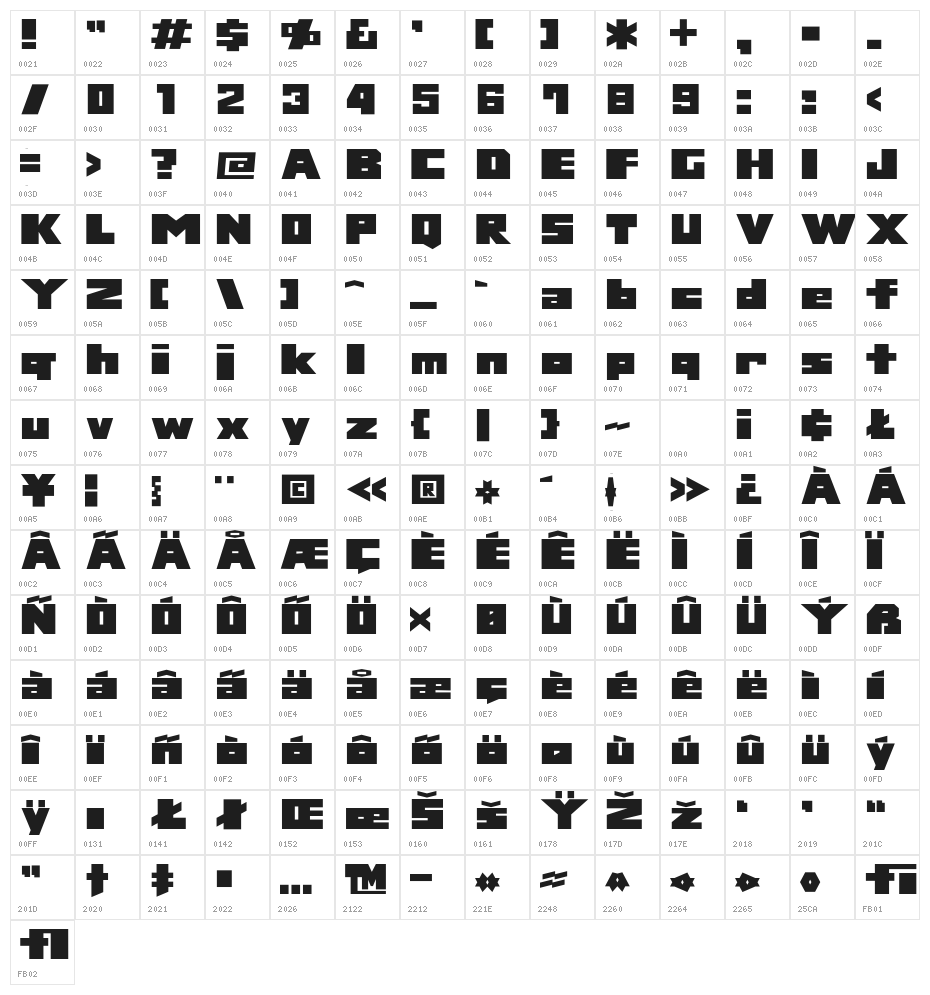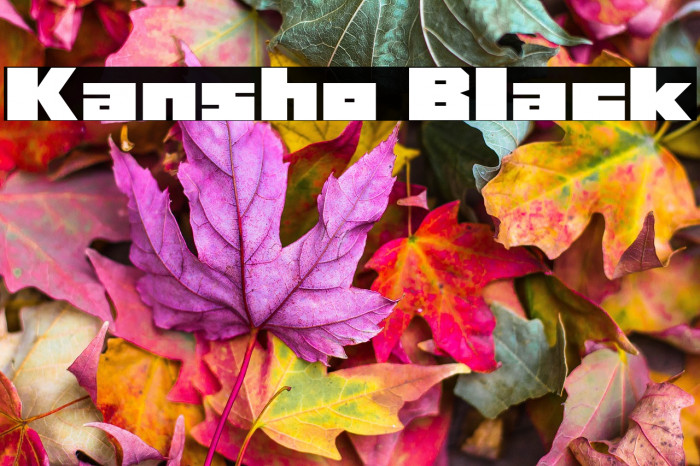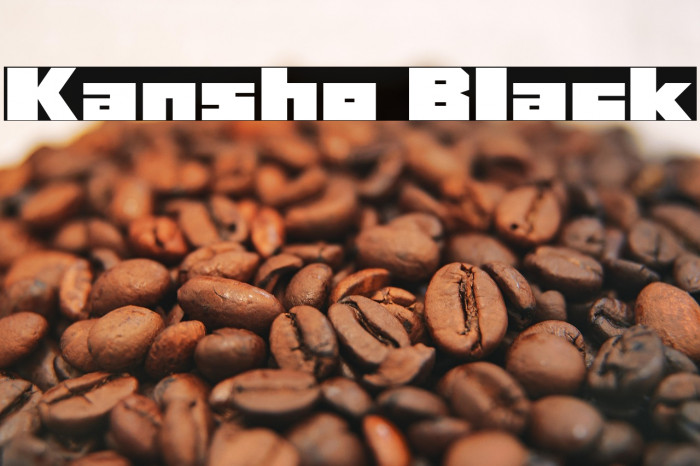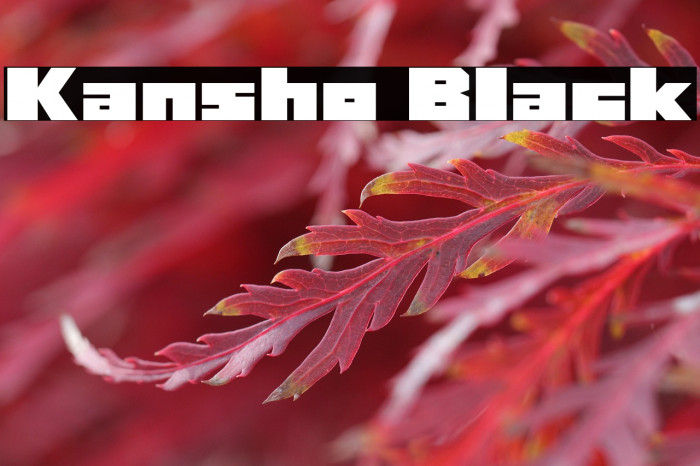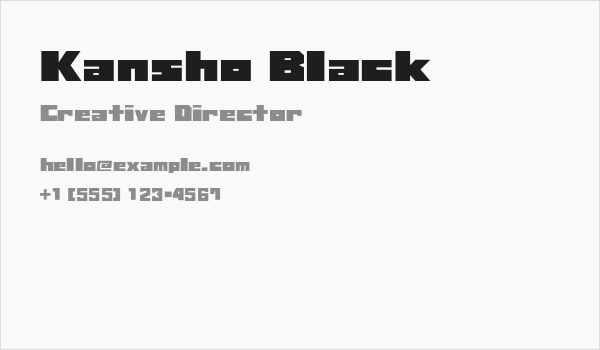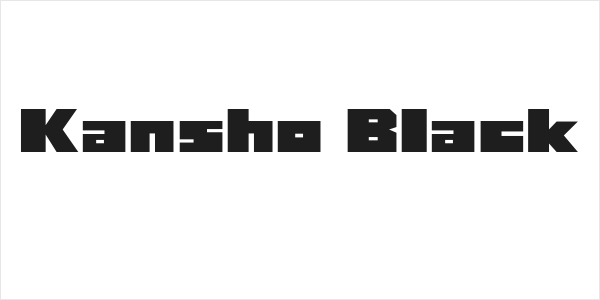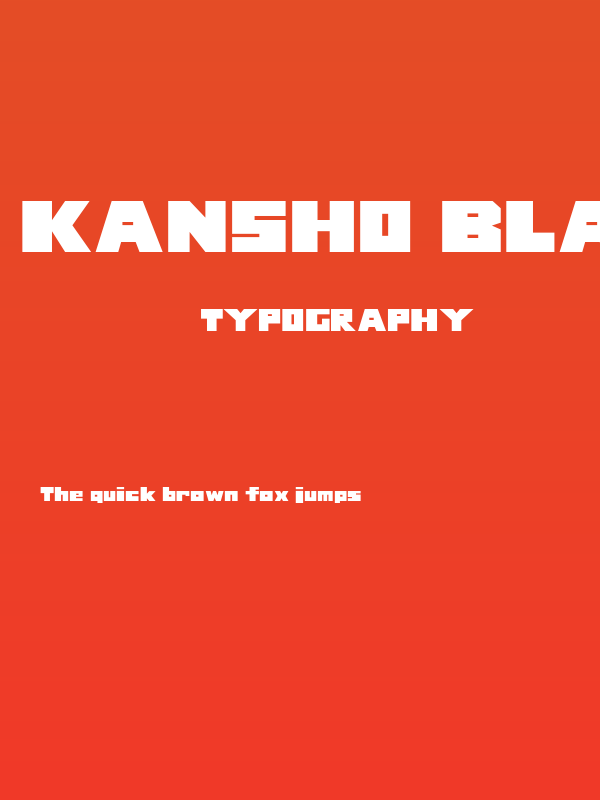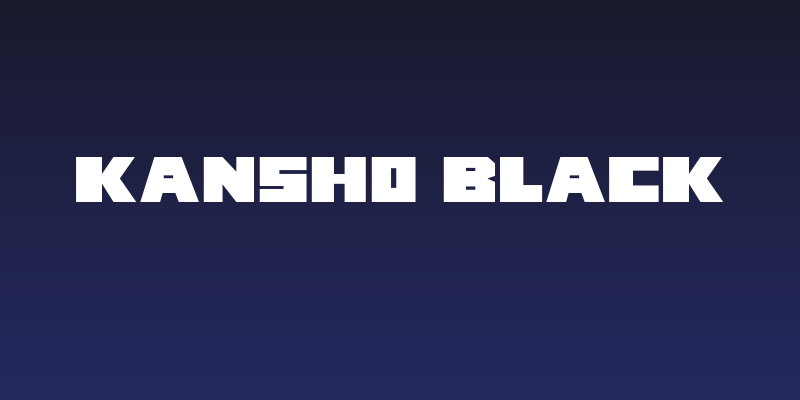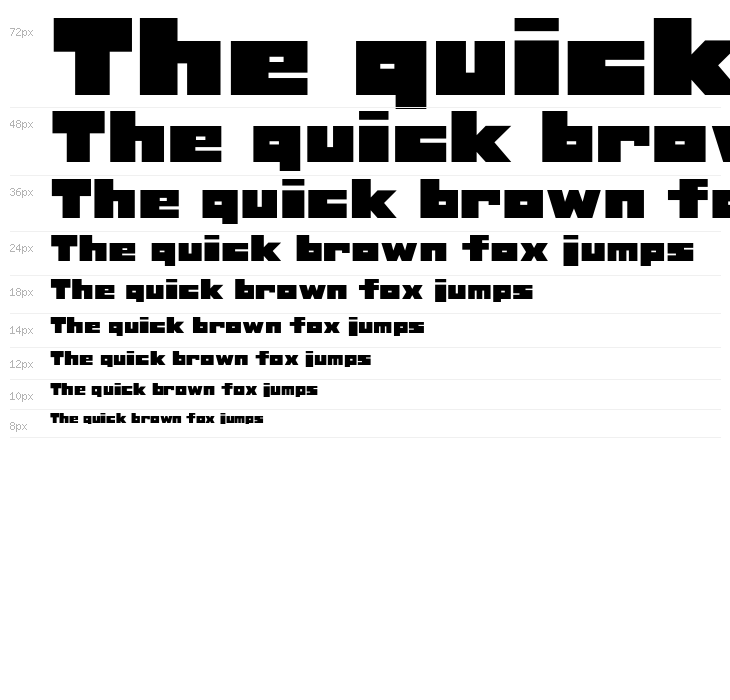
Kansho Black Font
Kansho Black Description
This font features a bold, geometric design with strong, angular lines and a blocky appearance. Each character is crafted with a sense of uniformity and solidity, making it stand out with a commanding presence. The uppercase and lowercase letters maintain a consistent weight, contributing to the font's cohesive look. The numbers and special characters follow the same design principles, ensuring a harmonious overall style. The font's boldness and distinct shapes make it ideal for attention-grabbing applications.
| Proposed Projects | Ideal for posters, headlines, logos, and branding materials that require a strong visual impact. |